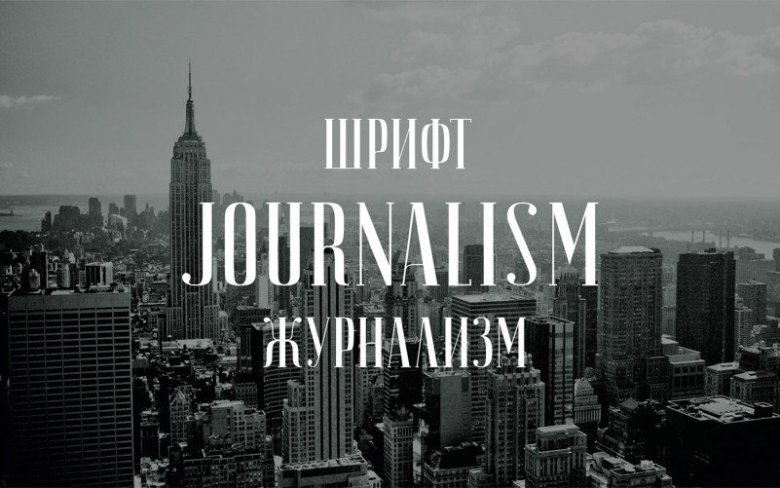
Journalism Serif Font Free
Journalism Serif Font – A stylish and elegant, condensed display serif typeface, that comes in two styles, regular and italic to create great variety in your designs.
This is primarily a display font (but can also be used for body copy) that we recommend using in the following types of work; magazines (titles and layouts), logos and branding, invitations, quotes, blog headers, posters, and advertising.